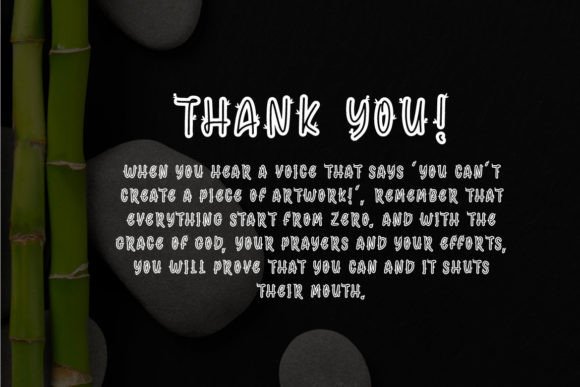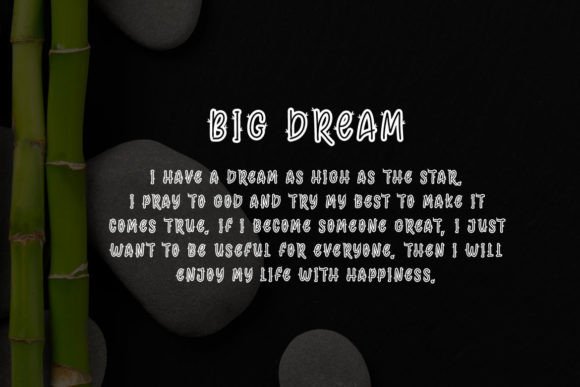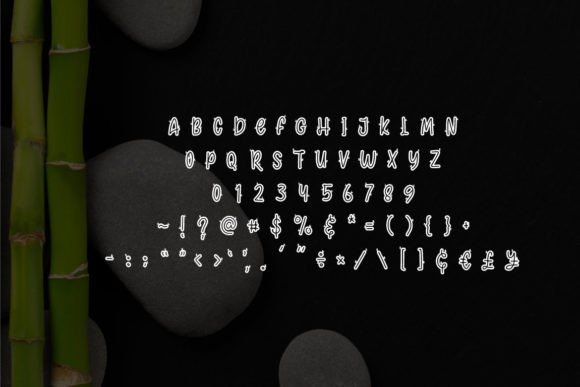
Bambineo Font: Add a Touch of Whimsy to Your Designs
Bambineo is a fun and cheerful decorative display font that can instantly elevate your projects with its playful and charming vibe. This delightful font is perfect for designers and crafters looking to add a touch of whimsy to their work. In this article, we’ll dive into the world of Bambineo Font, exploring its features, uses, and benefits, as well as provide tips on how to make the most of this fantastic font.
What is Bambineo Font?
Bambineo Font is a decorative display font designed to bring a sense of joy and playfulness to your designs. Its unique and quirky style makes it perfect for projects that require a touch of personality, such as children’s books, party invitations, branding, and more. With its bold and cheerful appearance, Bambineo Font is sure to capture the attention of your audience and leave a lasting impression.
Key Features of Bambineo Font
- Fun and Cheerful Design: Bambineo Font boasts a playful and charming design that’s sure to bring a smile to your face.
- Decorative Display Font: This font is perfect for headlines, titles, and short text passages, making it ideal for display purposes.
- Easy to Read: Despite its decorative nature, Bambineo Font remains easy to read, even at smaller sizes.
- Versatile: Bambineo Font can be used in a wide range of projects, from digital designs to print materials.
Uses of Bambineo Font
Bambineo Font is a versatile font that can be used in various projects, including:
- Children’s Books and Educational Materials: Add a touch of whimsy to your children’s books, workbooks, and educational materials with Bambineo Font.
- Party Invitations and Decorations: Create eye-catching party invitations, banners, and decorations with Bambineo Font.
- Branding and Packaging: Use Bambineo Font to create playful and memorable brand identities, packaging, and labels.
- Digital Designs: Add Bambineo Font to your digital designs, such as social media graphics, blog posts, and website headers.
Benefits of Using Bambineo Font
By incorporating Bambineo Font into your designs, you can:
- Add Personality to Your Designs: Bambineo Font brings a unique and playful touch to your designs, setting them apart from the rest.
- Create Engaging Content: The fun and cheerful nature of Bambineo Font makes it perfect for creating engaging and attention-grabbing content.
- Save Time and Effort: With Bambineo Font, you can quickly and easily add a professional touch to your designs without spending hours on complicated design work.
Tips for Using Bambineo Font
To get the most out of Bambineo Font, follow these tips:
- Use it Sparingly: Bambineo Font is best used sparingly, as a headline or title font, to create maximum impact.
- Pair it with Other Fonts: Combine Bambineo Font with other fonts to create visual interest and add depth to your designs.
- Experiment with Colors and Textures: Have fun experimenting with different colors and textures to bring your designs to life.
Bambineo Font is a fun and cheerful decorative display font that’s perfect for designers and crafters looking to add a touch of whimsy to their projects. With its unique and playful design, versatility, and ease of use, Bambineo Font is sure to become a favorite in your font collection. So why not give it a try and see the amazing results for yourself?